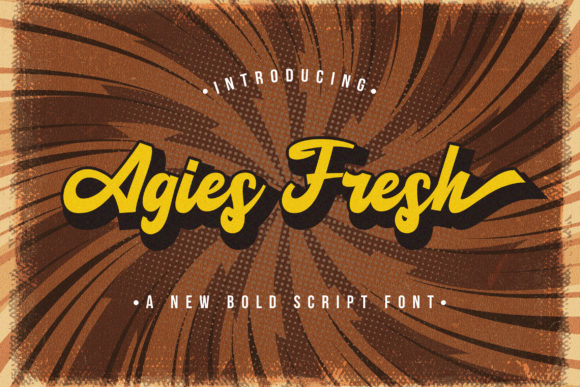
The Agies Fresh Font: A Bold and Beautiful Script for Creative Projects
An Honest Review of Agies Fresh
So, what makes Agies Fresh so special? Here are some things I love about this font:
- ✨ Unique vintage style: Agies Fresh has a distinctive curved and rounded design that gives it a nostalgic feel.
- ✅ Strong and bold: This font is perfect for making a statement, with its confident and eye-catching letters.
- 💡 Versatile: Agies Fresh can be used for a wide range of projects, from branding and advertising to packaging and signage.
While Agies Fresh is an excellent font, it’s not without its quirks. Here are a few things to keep in mind:
- 🤔 Limited use in body text: Due to its bold and decorative nature, Agies Fresh may not be the best choice for long blocks of body text.
A Practical Guide to Using Agies Fresh
- Experiment with OpenType features, such as Stylistic Alternates, to add more personality to your text.
- Access OpenType features, such as Glyphs and Stylistic Sets, to customize your text.
The Backstory of Agies Fresh
Agies Fresh was designed with the intention of capturing the essence of vintage typography. The designer aimed to create a font that was both bold and elegant, with a unique curved and rounded style. The result is a font that’s perfect for branding, advertising, and creative projects that require a touch of nostalgia.
| Font Name | Agies Fresh Font |
| Author | StringLabs |
| What is the best use for Agies Fresh? | Agies Fresh is perfect for branding, advertising, and creative projects that require a bold and elegant script font. |
| Can I use Agies Fresh for body text? | While Agies Fresh can be used for body text, it’s recommended to use it for titles and headings due to its bold and decorative nature. |